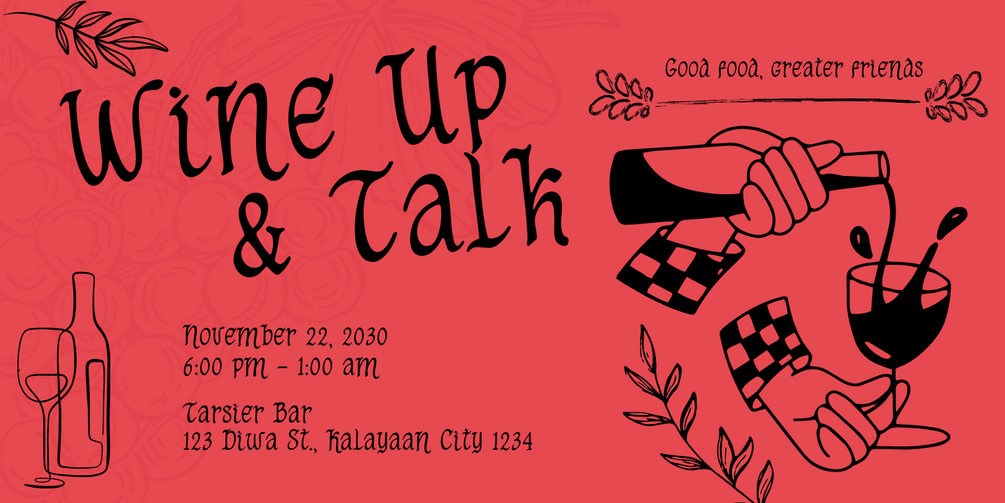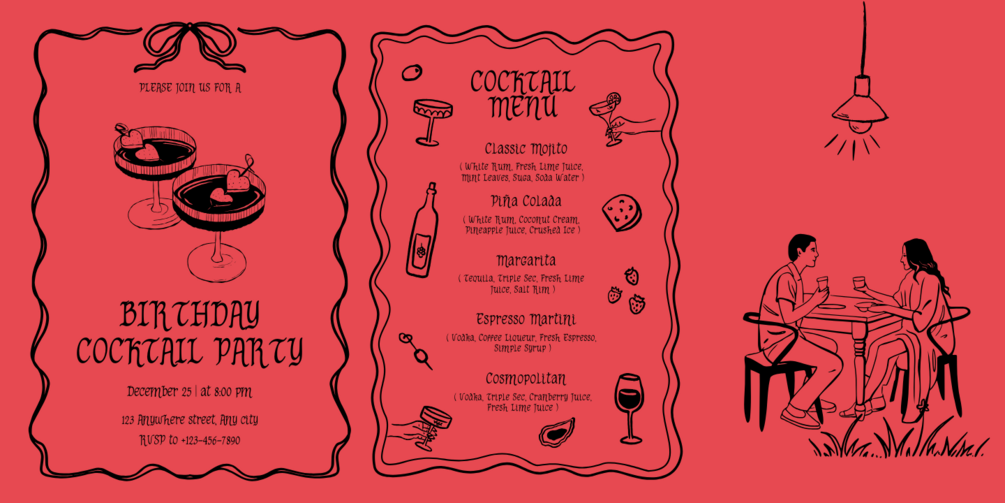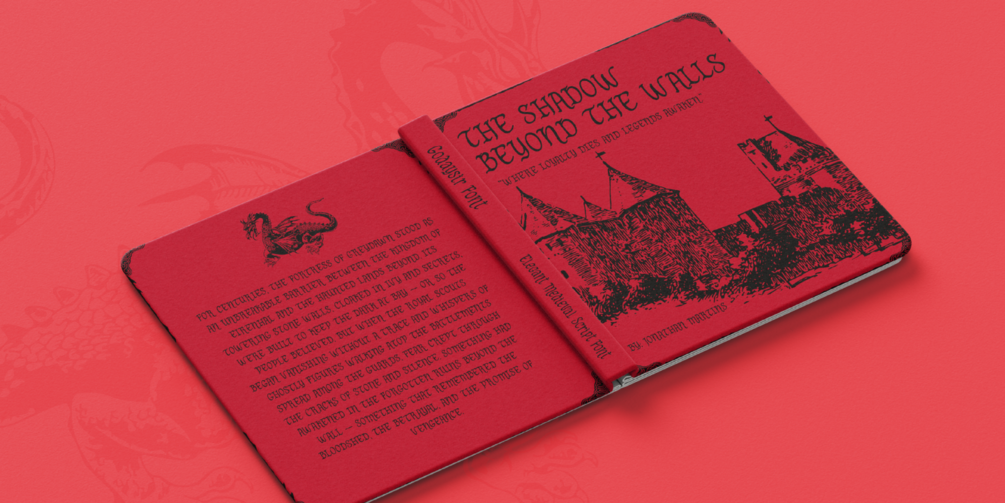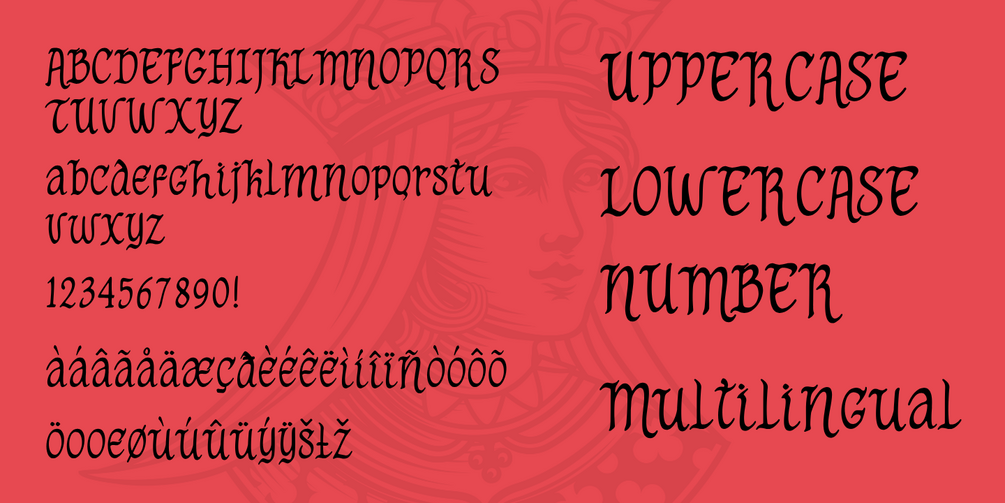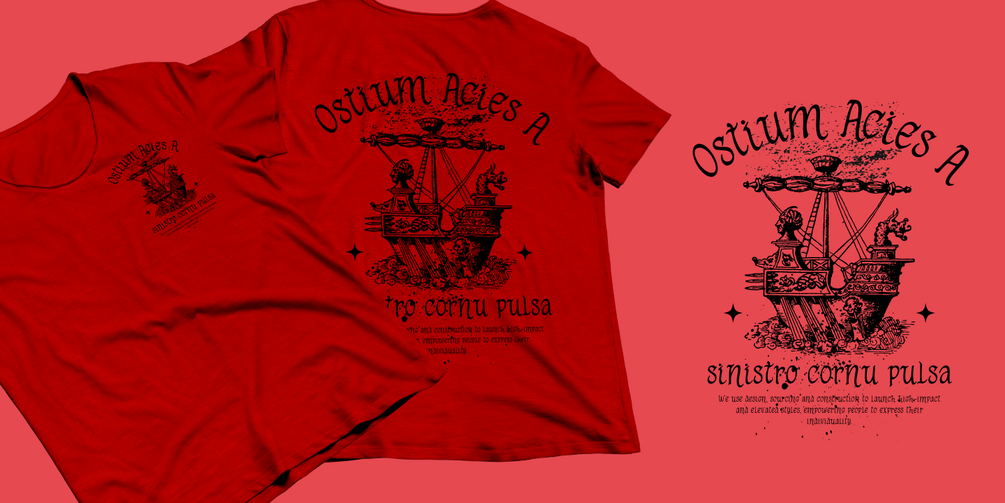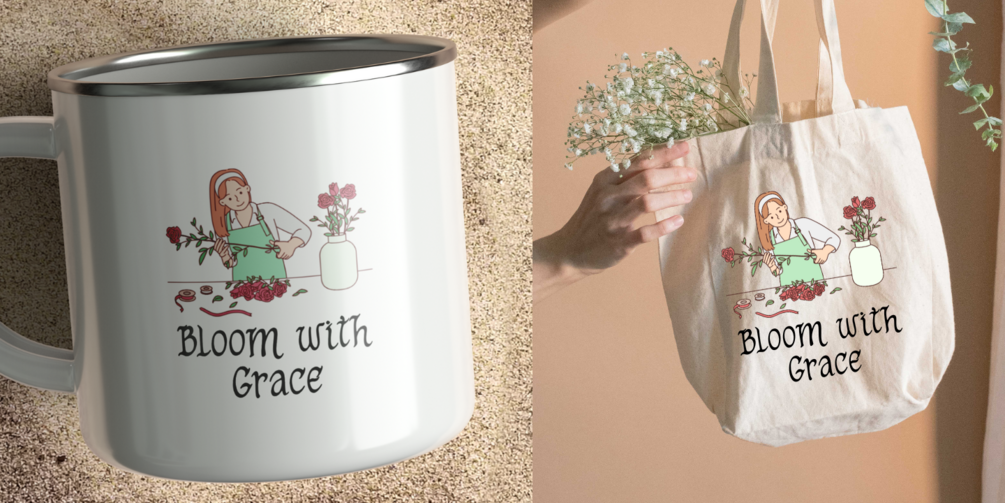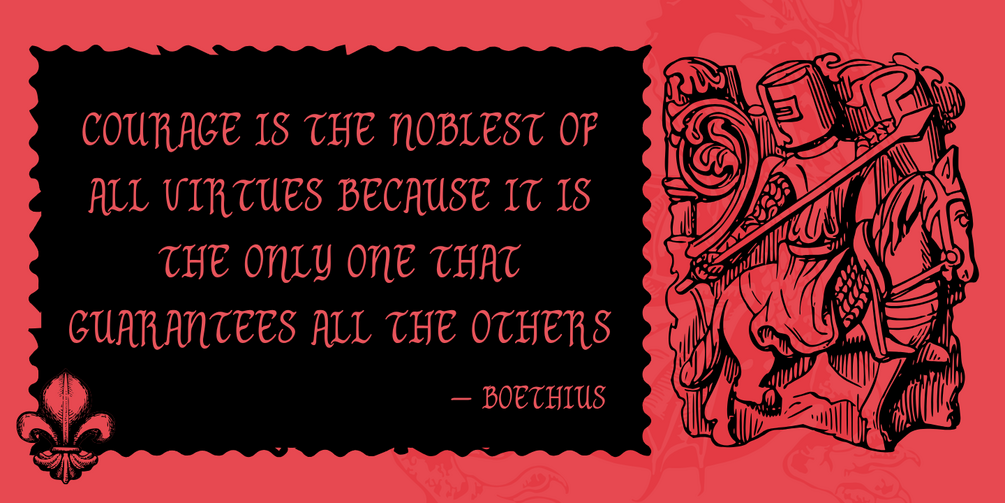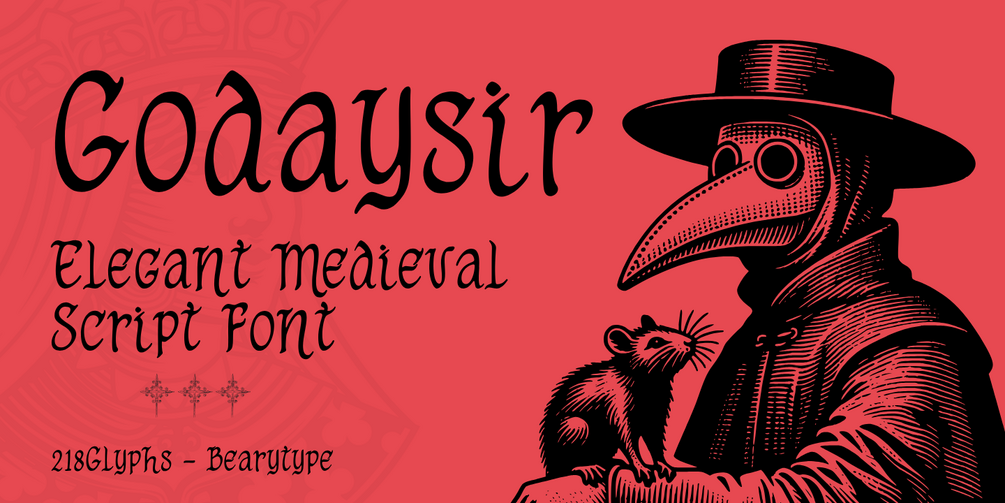
Godaysir – Elegant Medieval Script Typeface
Godaysir is a beautifully crafted script typeface inspired by medieval calligraphy and old European manuscripts. With graceful curves and stylized letterforms, it captures the spirit of historical elegance while maintaining modern readability. Each glyph reflects the charm of handwritten ink, making this font a perfect choice for vintage-inspired design projects.
Godaysir includes uppercase and lowercase letters, numerals, punctuation, and extended multilingual support with accented characters. Whether you're designing fantasy book covers, wedding invitations, elegant logos, or product packaging with a classic touch, Godaysir delivers sophistication and uniqueness.
• Style: Medieval Script / Calligraphy
• Full uppercase & lowercase set
• Numerals & punctuation marks
• Extensive multilingual support (Latin-based)
• Ideal for branding, invitations, editorial, fantasy, and heritage-themed design